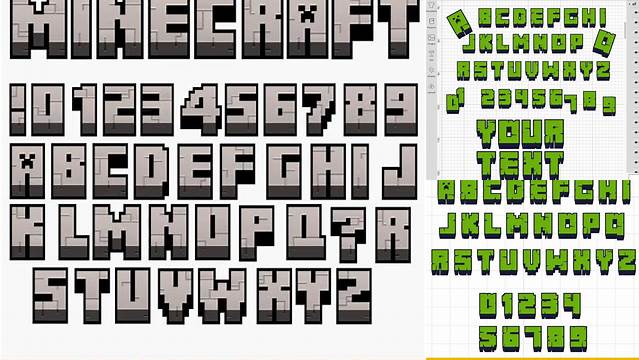
Minecraft Font For Cricut: A Crafter's Guide
Hey crafters! Are you ready to take your Cricut projects to the next level? If you're a Minecraft fan, you're in for a treat! In this guide, we'll dive deep into the world of Minecraft fonts and how you can use them with your Cricut machine. Whether you're making personalized gifts, party decorations, or custom apparel, the right font can make all the difference. Let's get started and explore the amazing possibilities of Minecraft fonts for your Cricut projects.
1. Understanding Minecraft Fonts
So, what exactly is a Minecraft font? Well, it's a typeface inspired by the iconic blocky style of the Minecraft game. These fonts usually mimic the pixelated and geometric look that makes Minecraft so recognizable. You can find various versions of these fonts online, some are free, while others might require a purchase. When using Minecraft fonts for Cricut, it’s important to ensure they are compatible and easy to work with. This means checking if the font is available in a format that Cricut Design Space supports, such as OTF or TTF. Understanding the characteristics of Minecraft fonts will help you select the perfect one for your project, ensuring it captures the essence of the game while being functional for your crafting needs. Remember, the goal is to bring a piece of the Minecraft universe into your physical creations, making them unique and memorable.
2. Finding Free Minecraft Fonts
Alright, let's talk about finding free Minecraft fonts because who doesn’t love free stuff, right? There are tons of websites out there offering fonts for download, but you need to be careful about licensing and quality. Some great places to start looking include websites like DaFont, FontSpace, and Google Fonts. When you're searching, make sure to filter for fonts that are free for personal use. This will save you any potential headaches down the road. Also, read the reviews or comments if available. This will help you gauge the quality of the font and whether other users have had any issues with it. Free Minecraft fonts can be a fantastic resource for your Cricut projects, allowing you to experiment without any financial commitment. Just remember to double-check those licenses and ensure the font is compatible with Cricut Design Space. Happy hunting, guys, and may the free Minecraft fonts be ever in your favor!
4. Using Minecraft Fonts in Cricut Design Space
Now for the fun part: using those awesome Minecraft fonts in Cricut Design Space! Once you’ve installed your font, open up Cricut Design Space and start a new project. Add a text box, and then click on the font dropdown menu. You might need to search for your Minecraft font by name, so make sure you remember what it's called. Select the font, and then type away! You can adjust the size, color, and spacing just like any other font in Cricut Design Space. Remember that some Minecraft fonts, due to their pixelated nature, might look better at larger sizes. Experiment with different sizes and settings to find what works best for your project. You can also use the contour tool to remove any unwanted details or clean up the font if needed. Using Minecraft fonts in Cricut Design Space allows you to create personalized and unique designs that capture the essence of the game. Have fun experimenting and creating amazing things!
5. Best Minecraft Font for Cricut
Choosing the best Minecraft font for Cricut really boils down to personal preference and the specific project you’re working on. However, some fonts tend to work better than others due to their clean lines and readability. One popular choice is the "Minecrafter" font, which closely resembles the font used in the game itself. Another great option is "Pixel Operator," which offers a more versatile and modern take on the Minecraft pixelated style. When selecting the best Minecraft font for Cricut, consider the size of your project and the level of detail you need. Simpler fonts with fewer intricate details tend to cut cleaner and are easier to weed. Also, think about the overall aesthetic you're trying to achieve. Do you want a font that is an exact replica of the Minecraft font, or something with a bit more flair? Ultimately, the best Minecraft font for Cricut is the one that best suits your creative vision and technical requirements.
6. Minecraft Font on Cricut Design Space
Alright, let's talk specifics about using Minecraft fonts on Cricut Design Space. It's one thing to have the font installed on your computer, but getting it to work seamlessly within Cricut Design Space is key. First off, make sure Cricut Design Space is closed when you install the font. This ensures that the program recognizes the new font when you reopen it. Sometimes, even after restarting, the font might not appear right away. If this happens, try clearing the cache in Cricut Design Space or even reinstalling the program. When you're working with Minecraft fonts on Cricut Design Space, keep in mind that these fonts often have a lot of small details. This means you might need to adjust your cutting settings to ensure a clean and precise cut. Consider using a sharper blade and slowing down the cutting speed. Also, don't be afraid to use the "Weld" tool to combine overlapping letters and create a smoother, more cohesive design. Using Minecraft fonts on Cricut Design Space can be a bit tricky, but with a little patience and experimentation, you can achieve amazing results.
7. Minecraft Font for Cricut Projects
Minecraft font for Cricut projects opens up a whole world of creative possibilities. Think about all the awesome things you can make! You could create personalized t-shirts with Minecraft-themed names or slogans. Or how about making custom stickers for laptops, water bottles, or phone cases? Minecraft font is also perfect for creating party decorations, such as banners, cupcake toppers, and favor tags. If you're feeling ambitious, you could even design intricate paper crafts or vinyl decals for home decor. The key to successful Minecraft font for Cricut projects is to plan ahead and choose projects that are well-suited to the pixelated style of the font. Simple designs with bold, clear text tend to work best. Also, don't be afraid to experiment with different colors and materials to create a truly unique and eye-catching design. With a little imagination, the possibilities for Minecraft font for Cricut projects are endless.
8. Minecraft Font Letters for Cricut
When it comes to Minecraft font letters for Cricut, it's all about precision and attention to detail. Because Minecraft fonts are typically pixelated, each letter is made up of small squares. This can sometimes make it challenging to cut cleanly, especially with intricate designs. To ensure the Minecraft font letters for Cricut are successful, start by choosing a font that is well-defined and has clear, crisp edges. Avoid fonts that are too blurry or have overlapping pixels. Next, adjust your cutting settings to match the material you're using. For vinyl, you might need to increase the pressure or slow down the cutting speed. For paper, use a light grip mat and a fine-point blade. When weeding the Minecraft font letters for Cricut, take your time and use a weeding tool to carefully remove the excess material. Be especially careful with small details and intricate corners. With a little patience and the right techniques, you can create stunning Minecraft font letters for Cricut that will impress everyone.
9. Minecraft Font Alphabet for Cricut
Creating a full Minecraft font alphabet for Cricut can be a fantastic resource for all your crafting needs. Having each letter readily available allows you to easily create custom names, words, and phrases for your Minecraft-themed projects. One approach is to find a complete Minecraft font set online and install it on your computer. This gives you access to every letter of the alphabet, as well as numbers and symbols. Another option is to create your own Minecraft font alphabet by designing each letter individually in Cricut Design Space. This gives you complete control over the design and allows you to customize the font to your exact specifications. When creating your own Minecraft font alphabet for Cricut, consider using the grid tool to help you create consistent and uniform letters. Also, experiment with different pixel sizes and shapes to achieve the desired look. Whether you download a pre-made font or create your own, having a Minecraft font alphabet for Cricut will save you time and effort in the long run.
10. Minecraft Font Numbers for Cricut
Don't forget about the numbers! Minecraft font numbers for Cricut are just as important as the letters, especially if you're creating personalized gifts, party decorations, or milestone markers. The same principles apply when working with Minecraft font numbers for Cricut as with the letters. Choose a font that is clear, well-defined, and easy to cut. Adjust your cutting settings to match the material you're using, and take your time when weeding. You can use Minecraft font numbers for Cricut to create custom birthday banners, anniversary decorations, or even personalized sports jerseys. Get creative and think about all the ways you can incorporate Minecraft font numbers into your next project.
11. Custom Minecraft Font for Cricut
Want to really stand out? Consider creating a custom Minecraft font for Cricut. This allows you to design a font that is completely unique and tailored to your specific style. You can use a font design program like FontForge or Glyphs to create your own custom Minecraft font. These programs allow you to design each letter, number, and symbol from scratch, giving you complete control over the look and feel of your font. Creating a custom Minecraft font for Cricut can be a time-consuming process, but the results are well worth the effort. Imagine having a font that is unlike anything else out there, a font that perfectly captures your creative vision. With a custom Minecraft font, your Cricut projects will truly be one-of-a-kind.
12. Minecraft Font SVG for Cricut
Using Minecraft font SVG for Cricut is a great way to ensure clean and precise cuts. SVG (Scalable Vector Graphics) files are vector-based images that can be scaled without losing quality. This makes them ideal for cutting with a Cricut machine. You can find Minecraft font SVG files online, or you can create your own using a vector graphics editor like Adobe Illustrator or Inkscape. When using Minecraft font SVG for Cricut, simply upload the SVG file to Cricut Design Space and adjust the size and position as needed. The Cricut will then cut the SVG file with precision and accuracy, resulting in a professional-looking finished product. Using Minecraft font SVG for Cricut is a smart choice for crafters who want the best possible results.
13. Minecraft Font Generator for Cricut
Looking for a quick and easy way to create Minecraft font designs for your Cricut projects? A Minecraft font generator might be just what you need. These online tools allow you to type in text and generate a Minecraft-style font that you can then download and use in Cricut Design Space. Some Minecraft font generators offer additional customization options, such as changing the font size, color, and style. Keep in mind that the quality of the generated font may vary depending on the tool you use. Always preview the font carefully before downloading it to ensure it meets your expectations. A Minecraft font generator can be a convenient way to create basic designs, but for more complex projects, you might want to consider using a dedicated font editor or SVG file.
14. Minecraft Font Download for Cricut
Ready to get your hands on some Minecraft fonts? A Minecraft font download for Cricut is just a few clicks away. There are numerous websites that offer Minecraft fonts for download, both free and paid. When downloading a Minecraft font, be sure to check the license agreement to ensure that you are allowed to use the font for your intended purpose. Some fonts are free for personal use only, while others can be used for commercial projects. Also, pay attention to the file format. Cricut Design Space supports OTF and TTF fonts, so make sure the font you download is in one of these formats. Once you've downloaded the Minecraft font, install it on your computer and restart Cricut Design Space. The font should now be available for use in your projects.
15. Pixel Minecraft Font for Cricut
The pixel Minecraft font for Cricut is the classic choice for recreating the authentic Minecraft look. These fonts are designed to mimic the pixelated graphics of the game, with each letter, number, and symbol made up of individual squares. When using a pixel Minecraft font for Cricut, it's important to choose a font that is well-defined and has clear, crisp pixels. Avoid fonts that are blurry or have overlapping pixels. Also, consider the size of your project. Pixel Minecraft fonts tend to look best at larger sizes, as the individual pixels become more visible and create a more impactful effect. With the right pixel Minecraft font, you can create Cricut projects that perfectly capture the retro charm of Minecraft.
16. Minecraft Cricut Font Ideas
Need some inspiration for your next Minecraft Cricut font project? Here are a few ideas to get you started: personalized Minecraft t-shirts, custom Minecraft stickers, Minecraft-themed party decorations, Minecraft vinyl decals for home decor, and Minecraft paper crafts. Think about the things you love about Minecraft and try to incorporate those elements into your designs. Use Minecraft fonts to create custom names, phrases, or slogans that reflect your Minecraft fandom. Experiment with different colors, materials, and techniques to create unique and eye-catching projects. The possibilities are endless when it comes to Minecraft Cricut font ideas.
17. Minecraft Style Font for Cricut
When you're aiming for that blocky, nostalgic feel, a Minecraft style font for Cricut is the way to go. These fonts capture the essence of the game's visual aesthetic, making them perfect for a wide range of projects. Whether you're creating custom apparel, party decorations, or home décor, a Minecraft style font can add a touch of pixelated charm to your designs. Look for fonts with clear, defined edges and a consistent pixel size to ensure clean cuts with your Cricut machine. Experiment with different sizes and colors to find the perfect look for your project. With a Minecraft style font, you can bring the world of Minecraft to life in your crafting endeavors.
18. Creating Minecraft Invitations with Cricut
Planning a Minecraft-themed party? Creating Minecraft invitations with Cricut is a fantastic way to set the tone for your event. Use a Minecraft font to create custom invitations that capture the spirit of the game. Include iconic Minecraft elements like creepers, zombies, and blocks in your design. You can use your Cricut to cut out intricate shapes and patterns, adding depth and dimension to your invitations. Consider using cardstock in Minecraft-inspired colors like green, brown, and black. Personalize each invitation with the recipient's name in a Minecraft font to make them feel extra special. Creating Minecraft invitations with Cricut is a fun and creative way to get your guests excited about your party.
19. Minecraft Birthday Banner with Cricut
No Minecraft birthday party is complete without a Minecraft birthday banner with Cricut. Use a Minecraft font to create custom letters for your banner, spelling out "Happy Birthday" or the birthday person's name. Cut out the letters using your Cricut machine and attach them to a string or ribbon. You can also add Minecraft-themed images to your banner, such as creepers, pickaxes, and diamond swords. Use cardstock in Minecraft colors to create a vibrant and eye-catching banner. Consider adding a layer of glitter or shimmer to make your banner extra special. A Minecraft birthday banner with Cricut is a must-have decoration for any Minecraft fan's birthday celebration.
20. Minecraft Cake Toppers with Cricut
Take your Minecraft cake to the next level with custom Minecraft cake toppers with Cricut. Use a Minecraft font to create personalized messages or the birthday person's name. Cut out the designs using your Cricut machine and attach them to skewers or lollipop sticks. You can also create Minecraft-themed shapes like blocks, tools, and characters to add to your cake. Use edible paper or fondant to create safe and delicious cake toppers. A Minecraft cake toppers with Cricut is the perfect finishing touch for any Minecraft-themed birthday cake.
21. Minecraft Shirt Designs with Cricut
Minecraft shirt designs with Cricut are a fun and creative way to show off your love for the game. Use a Minecraft font to create custom slogans, names, or phrases. Cut out the designs using your Cricut machine and apply them to a plain t-shirt using heat transfer vinyl. You can also incorporate Minecraft-themed images into your designs, such as creepers, endermen, and diamond swords. Experiment with different colors and materials to create unique and eye-catching shirt designs. Minecraft shirt designs with Cricut are a great way to personalize your wardrobe and express your Minecraft fandom.
22. Minecraft Stickers with Cricut
Minecraft stickers with Cricut are perfect for decorating laptops, water bottles, phone cases, and more. Use a Minecraft font to create custom names, initials, or phrases. Cut out the designs using your Cricut machine and apply them to sticker paper or vinyl. You can also create Minecraft-themed images to add to your stickers, such as blocks, tools, and characters. Use different colors and finishes to create unique and eye-catching stickers. Minecraft stickers with Cricut are a fun and easy way to personalize your belongings and show off your Minecraft pride.
23. Minecraft Home Decor with Cricut
Transform your home into a Minecraft paradise with Minecraft home decor with Cricut. Use a Minecraft font to create custom wall decals, throw pillows, and other decorative items. Cut out the designs using your Cricut machine and apply them to various surfaces. You can also create Minecraft-themed artwork using cardstock, vinyl, or wood. Use different colors and textures to create a unique and immersive Minecraft atmosphere. Minecraft home decor with Cricut is a great way to personalize your living space and express your love for the game.
24. Minecraft Party Favors with Cricut
Send your guests home with memorable Minecraft party favors with Cricut. Use a Minecraft font to create custom tags, labels, and decorations for your favors. Cut out the designs using your Cricut machine and attach them to small gifts like candies, stickers, or toys. You can also create Minecraft-themed treat bags or boxes using cardstock and your Cricut machine. Personalize each favor with the recipient's name in a Minecraft font to make them feel extra special. Minecraft party favors with Cricut are a thoughtful and creative way to thank your guests for celebrating with you.
25. Combining Minecraft Fonts with Other Fonts
Sometimes, the best designs come from unexpected combinations. Combining Minecraft fonts with other fonts can create a unique and eye-catching effect. Try pairing a Minecraft font with a clean and modern sans-serif font for a contrasting look. Or, combine a Minecraft font with a whimsical script font for a playful and fun design. Experiment with different font combinations to find what works best for your project. Just make sure that the fonts you choose complement each other and create a cohesive overall design. Combining Minecraft fonts with other fonts is a great way to add visual interest and personality to your Cricut projects.
26. Tips for Weeding Minecraft Fonts
Weeding intricate Minecraft fonts can be a bit challenging, but with the right techniques, it can be a breeze. Here are a few tips for weeding Minecraft fonts: Use a sharp weeding tool to carefully remove the excess material. Work in a well-lit area to ensure that you can see all the small details. Start by weeding the larger areas first, and then move on to the smaller, more intricate details. Use a heat gun or hair dryer to warm up the vinyl, making it easier to weed. If you're having trouble weeding a particular area, try using a small piece of masking tape to lift the vinyl. With a little patience and practice, you'll be a pro at weeding Minecraft fonts in no time.
27. Adjusting Cricut Settings for Minecraft Fonts
Getting the right cut settings is crucial for successful Minecraft projects. Adjusting Cricut settings for Minecraft fonts ensures clean and precise cuts. Start by selecting the appropriate material setting for the material you're using, such as vinyl, cardstock, or iron-on. If you're cutting a particularly intricate design, try increasing the pressure or slowing down the cutting speed. Use a fine-point blade for best results. Test your settings on a small piece of scrap material before cutting your final design. Adjusting Cricut settings for Minecraft fonts can take some experimentation, but it's well worth the effort to achieve professional-looking results.
28. Using Minecraft Font for Personalized Gifts
Want to create a truly special and unique gift? Using Minecraft font for personalized gifts is a thoughtful way to show someone you care. Personalize a t-shirt, mug, or phone case with the recipient's name or initials in a Minecraft font. Create a custom wall decal or throw pillow for their bedroom or living room. Design a Minecraft-themed scrapbook or photo album filled with memories. The possibilities are endless when it comes to using Minecraft font for personalized gifts. Your thoughtfulness and creativity will surely be appreciated.
29. Finding Minecraft Symbols for Cricut
To add extra flair to your Minecraft projects, consider finding Minecraft symbols for Cricut. These symbols can include iconic Minecraft elements like hearts, stars, swords, and tools. You can find Minecraft symbols online as SVG files or PNG images. Upload the files to Cricut Design Space and cut them out using your Cricut machine. Use these symbols to create borders, accents, or standalone designs. Finding Minecraft symbols for Cricut is a great way to add visual interest and personality to your projects.
30. Mastering Minecraft Font Techniques for Cricut
To truly elevate your Minecraft crafting skills, focus on mastering Minecraft font techniques for Cricut. This includes understanding the nuances of different Minecraft fonts, experimenting with various cutting settings, and perfecting your weeding techniques. Practice combining Minecraft fonts with other design elements to create unique and eye-catching projects. Explore different materials and finishes to add texture and dimension to your creations. By mastering Minecraft font techniques for Cricut, you'll be able to create professional-quality projects that showcase your creativity and love for the game. Keep experimenting, keep learning, and most importantly, keep having fun!